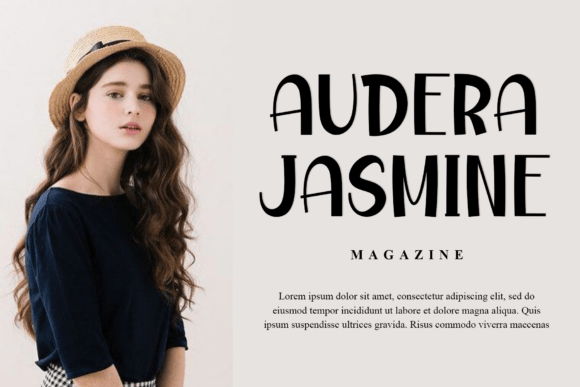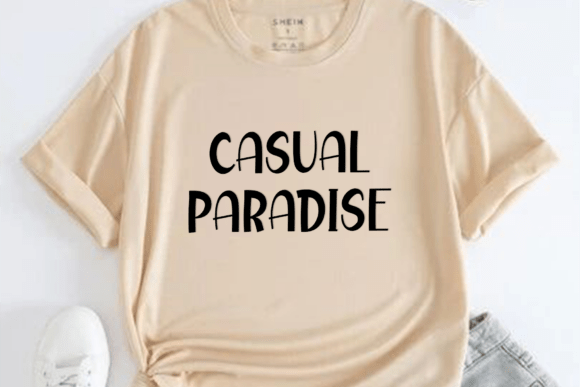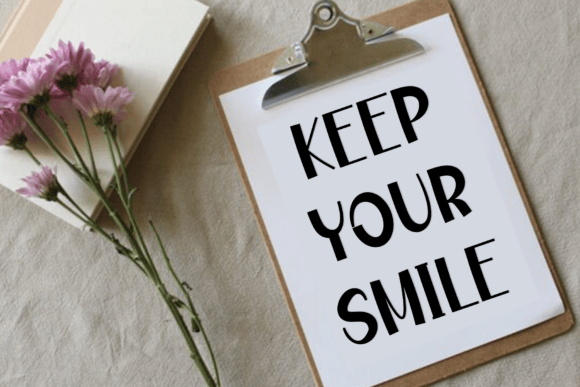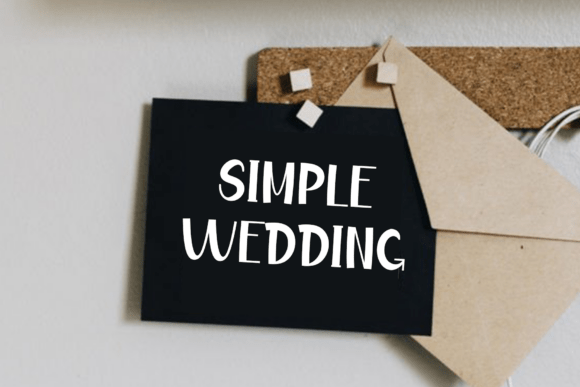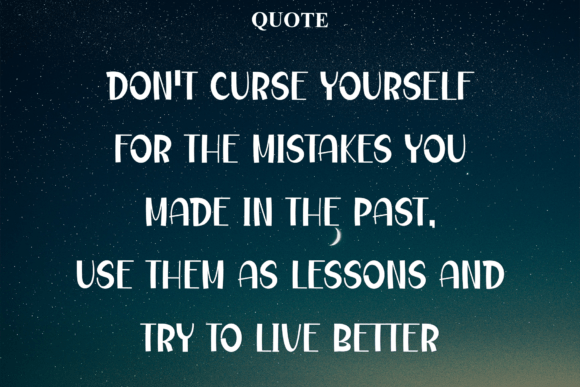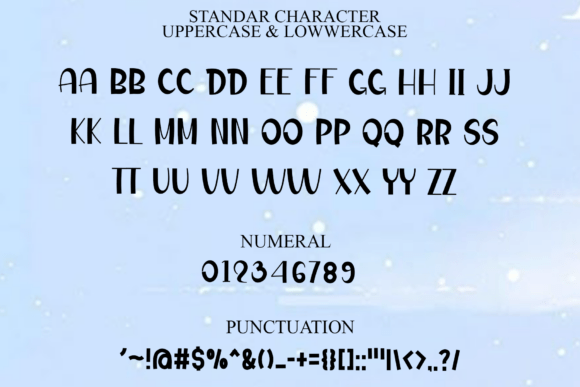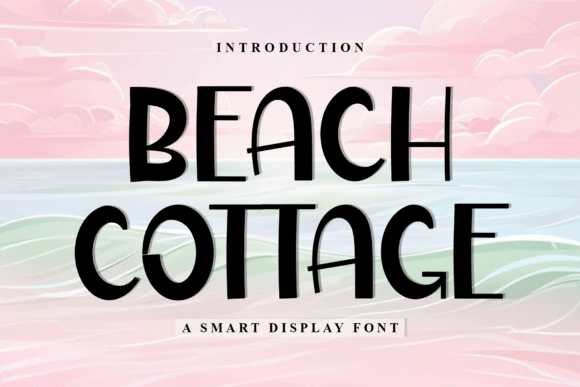
Introducing Beach Cottage Font: The Perfect Addition to Your Design Toolbox
Are you looking for a font that exudes warmth, friendliness, and a touch of playfulness? Look no further than the Beach Cottage font. This casual and creative font is perfect for designers, crafters, and anyone looking to add a personal touch to their projects. In this article, we’ll dive into the features and benefits of the Beach Cottage font and explore how it can elevate your designs.
A Font that Embodies Warmth and Friendliness
The Beach Cottage font is designed to evoke a sense of relaxation and approachability. Its round, playful strokes create a charming and inviting feel that’s perfect for personal projects, invitations, and social media graphics. Whether you’re designing a wedding invitation, a social media post, or a blog header, this font is sure to add a touch of warmth and personality to your design.
Key Features of Beach Cottage Font
- Hand-drawn aesthetic: The Beach Cottage font boasts a charming, hand-drawn aesthetic that adds a fun and unique touch to any design.
- Playful strokes: The font’s round, playful strokes create a relaxed and approachable feel that’s perfect for a wide range of design projects.
The Beach Cottage font is an excellent addition to any designer’s or crafter’s toolbox. Its versatility and charm make it suitable for a wide range of projects, including:
- Personal projects: Use the Beach Cottage font to add a personal touch to your blog, social media profiles, or personal website.
- Invitations: Create beautiful and unique invitations for weddings, birthday parties, or other special occasions.
- Social media graphics: Use the Beach Cottage font to create eye-catching social media graphics that showcase your brand’s personality.
- Branding: Incorporate the Beach Cottage font into your brand’s visual identity to add a touch of warmth and friendliness.
Why Choose Beach Cottage Font?
With so many fonts available, why choose Beach Cottage? Here are just a few reasons:
- Unique and creative: The Beach Cottage font offers a fresh and creative take on traditional fonts.
- Easy to read: The font’s playful strokes and rounded edges make it easy to read, even at smaller sizes.
- Highly versatile: The Beach Cottage font can be used for a wide range of projects, from personal to commercial.
Tips for Using Beach Cottage Font
Here are a few tips for getting the most out of the Beach Cottage font:
- Pair with complementary fonts: Pair the Beach Cottage font with complementary fonts to create a unique and visually appealing combination.
- Experiment with colors: The Beach Cottage font looks great in a variety of colors, so don’t be afraid to experiment and find the perfect hue for your design.
- Use for headlines and titles: The Beach Cottage font is perfect for headlines and titles, adding a touch of personality and whimsy to your design.
The Beach Cottage font is a charming and creative addition to any design toolbox. Its unique blend of playfulness and warmth makes it perfect for a wide range of projects, from personal to commercial. With its standard PUA Encoded glyphs and compatibility with various application engines, this font is sure to become a favorite among designers and crafters. So why wait? Download the Beach Cottage font today and start adding a touch of warmth and personality to your designs.